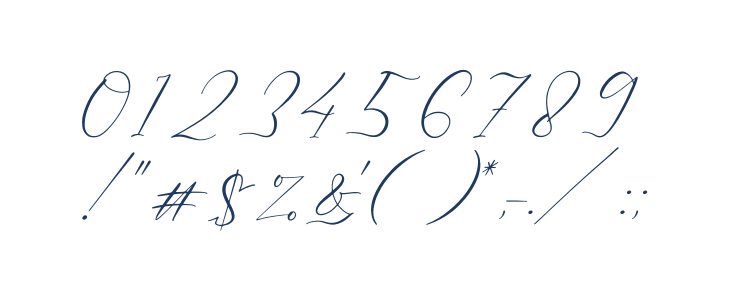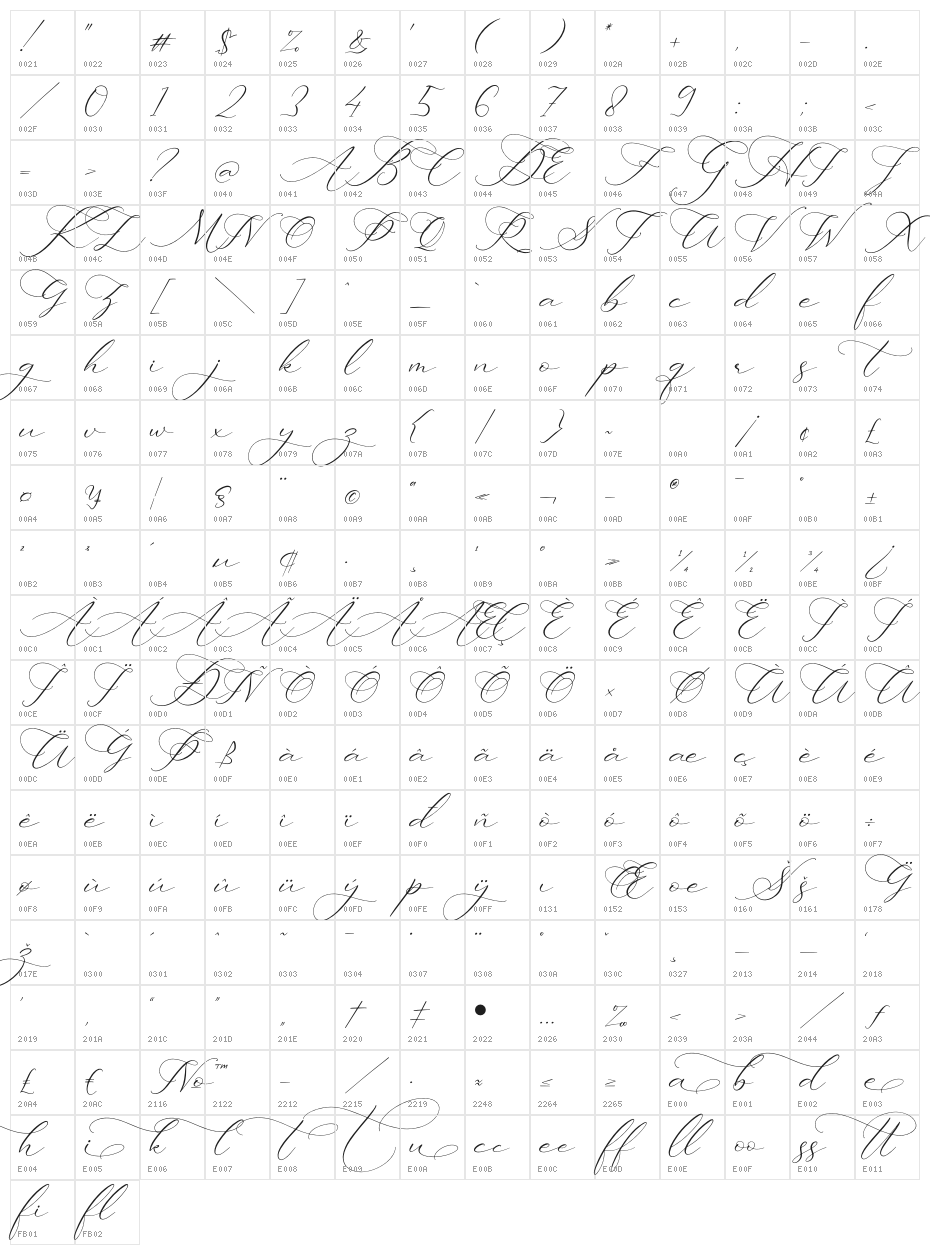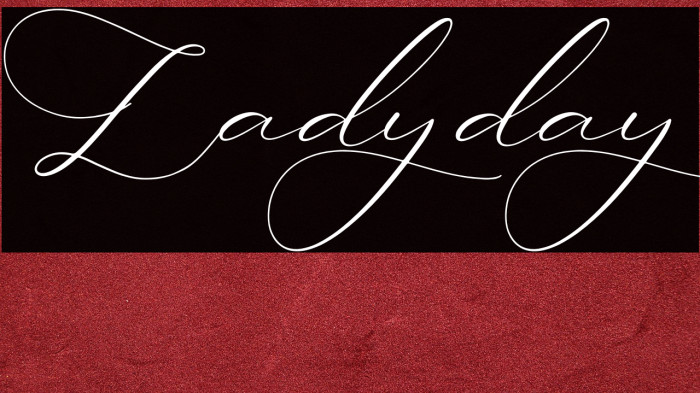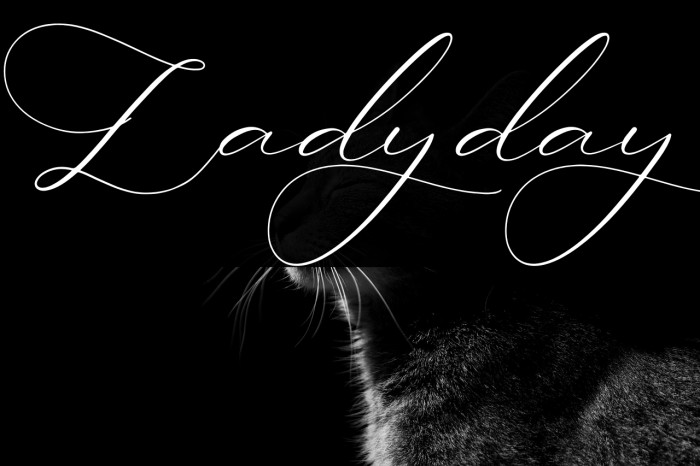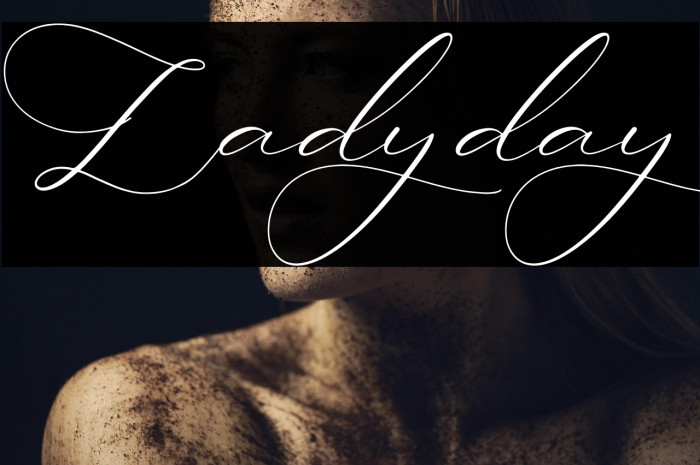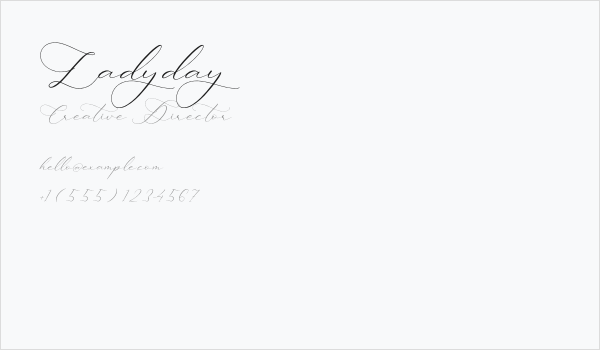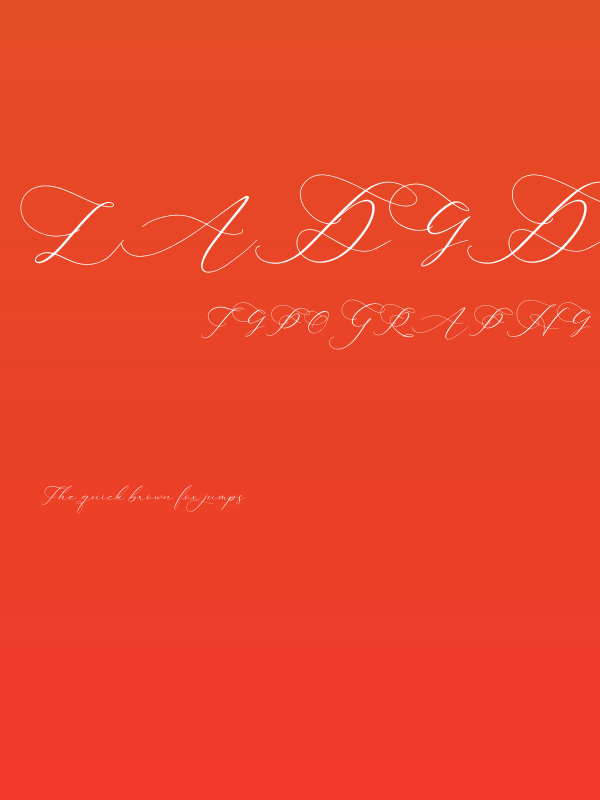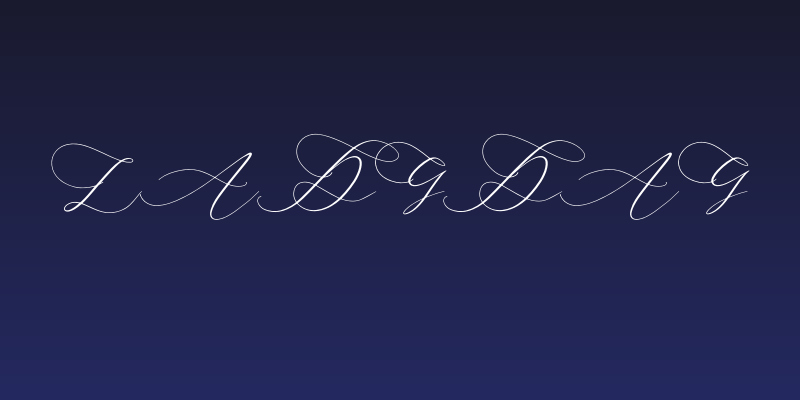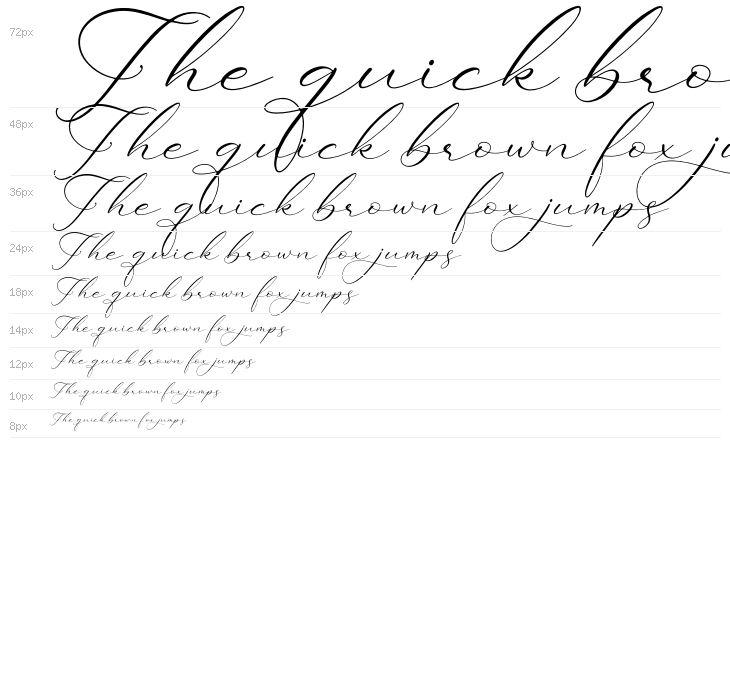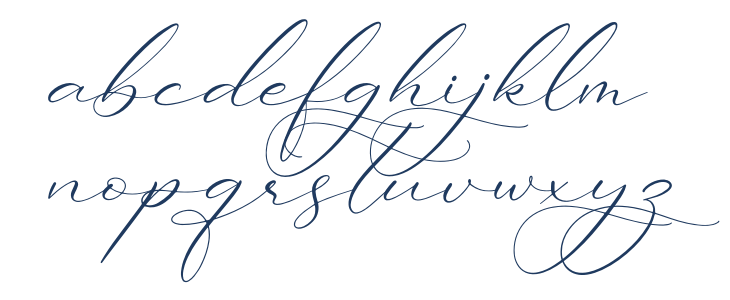
Ladyday Font
Ladyday Description
This elegant script font features a flowing, cursive style with intricate loops and flourishes. The uppercase letters are particularly ornate, with sweeping lines that extend beyond the baseline and cap height, creating a sense of movement and grace. The lowercase letters maintain a consistent flow, with gentle curves and connections that enhance readability while retaining an artistic flair. The numerals are distinct yet harmonize with the overall style, offering a sophisticated touch. Special characters are equally elaborate, fitting seamlessly into the font's aesthetic. This font exudes a sense of luxury and refinement, making it ideal for formal occasions.
| Overall Style | Elegant, Luxurious |
| Use Case | Logos, Invitations, Branding |
| Proposed Projects | Ideal for wedding invitations, luxury branding, elegant stationery, and high-end product packaging. |